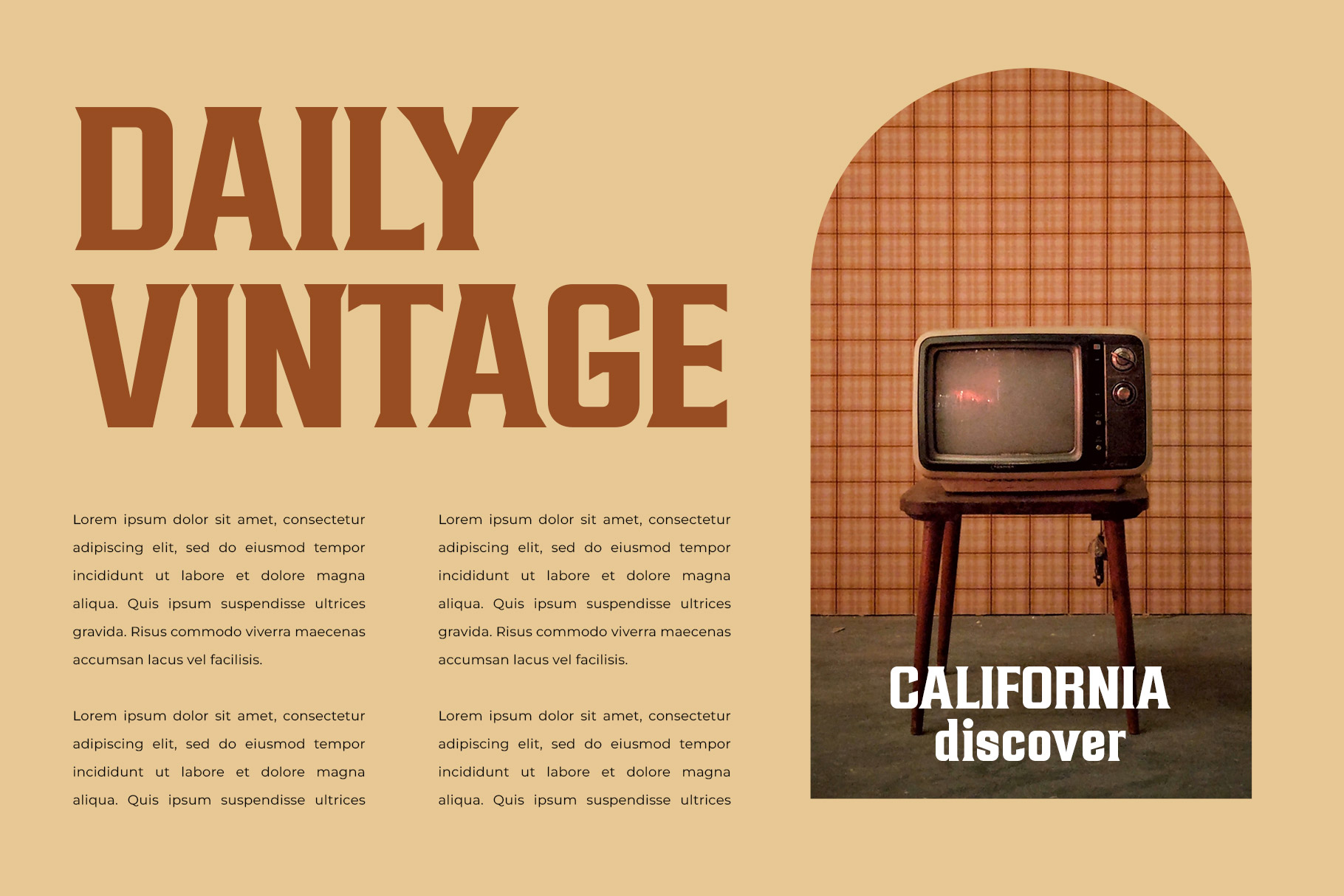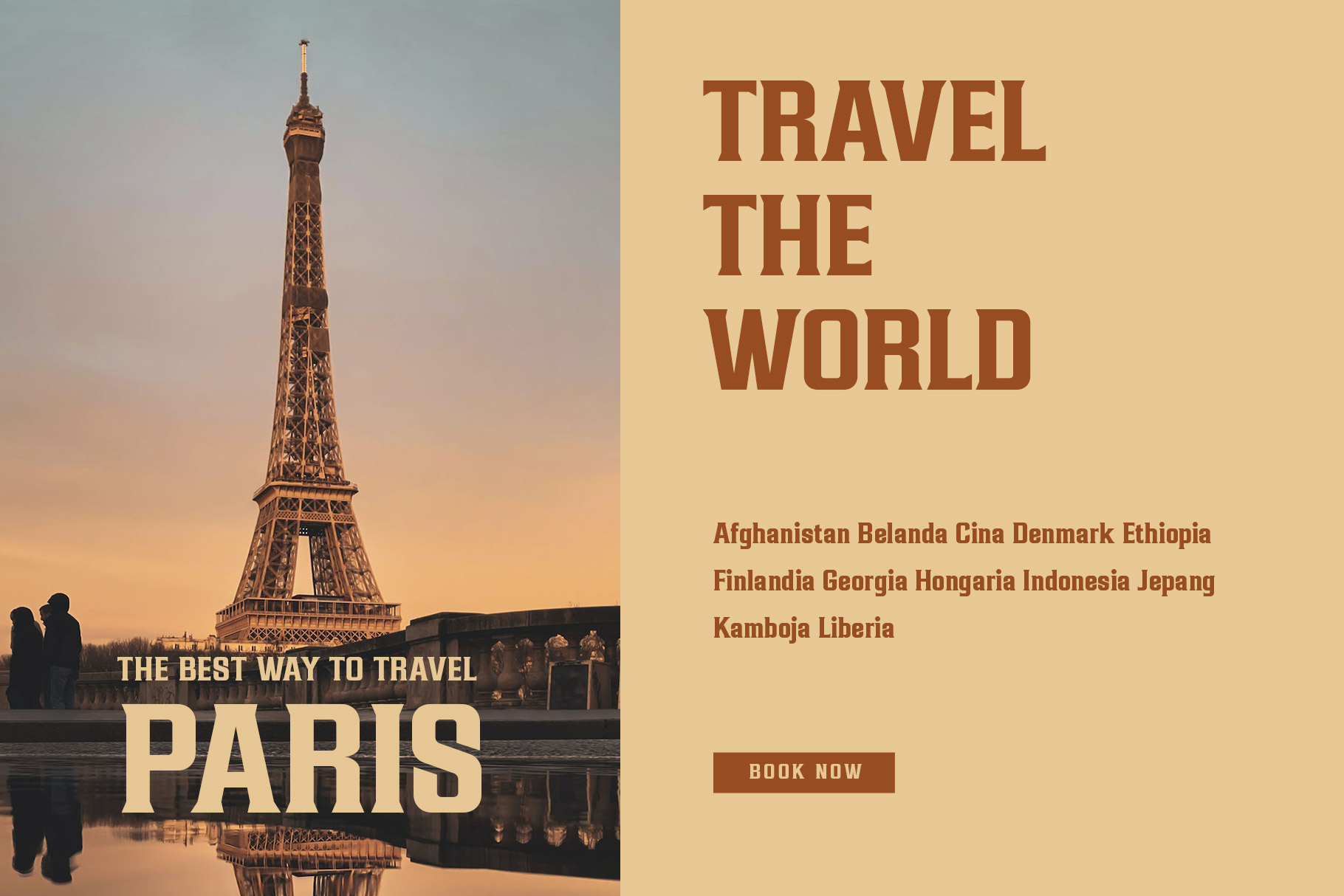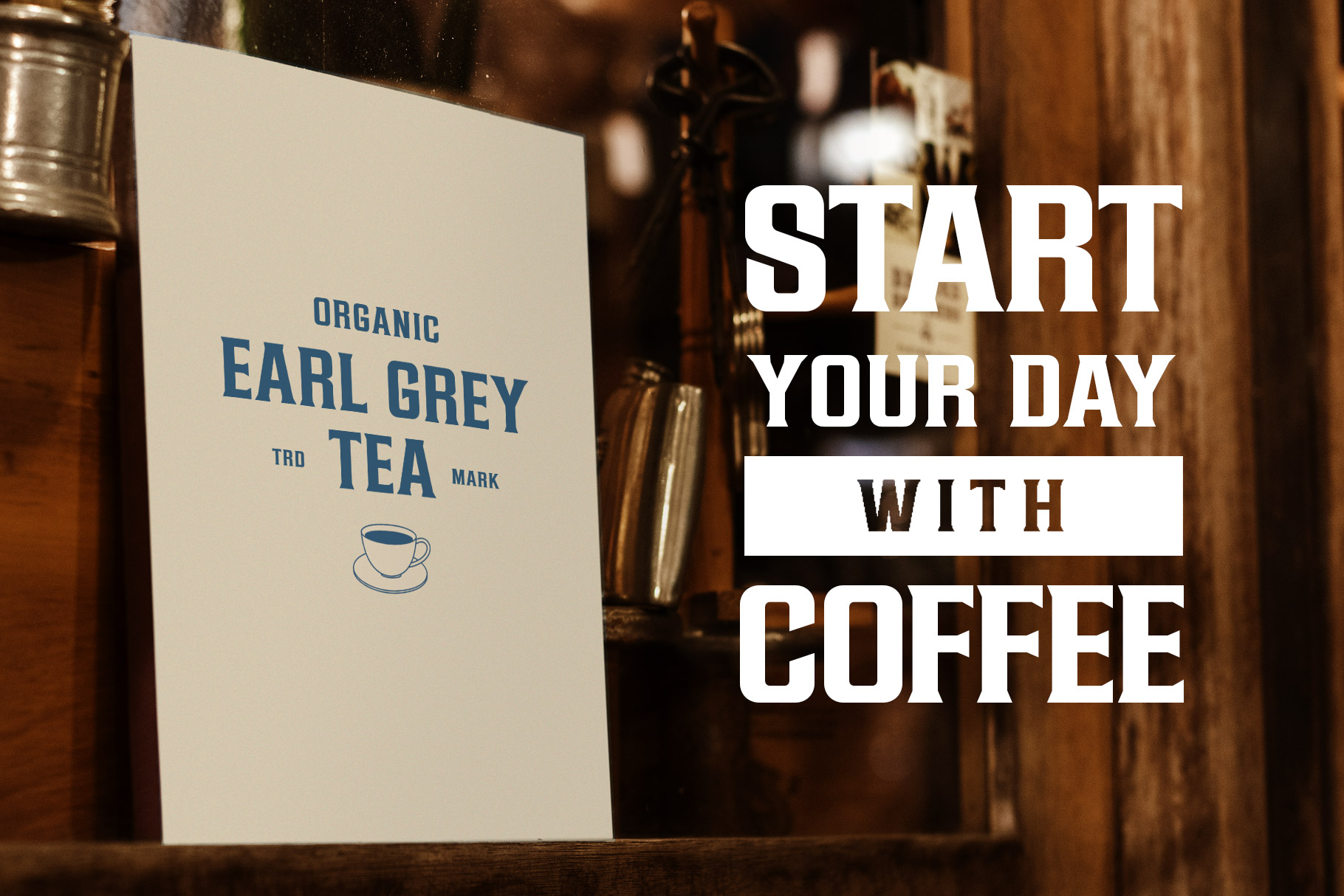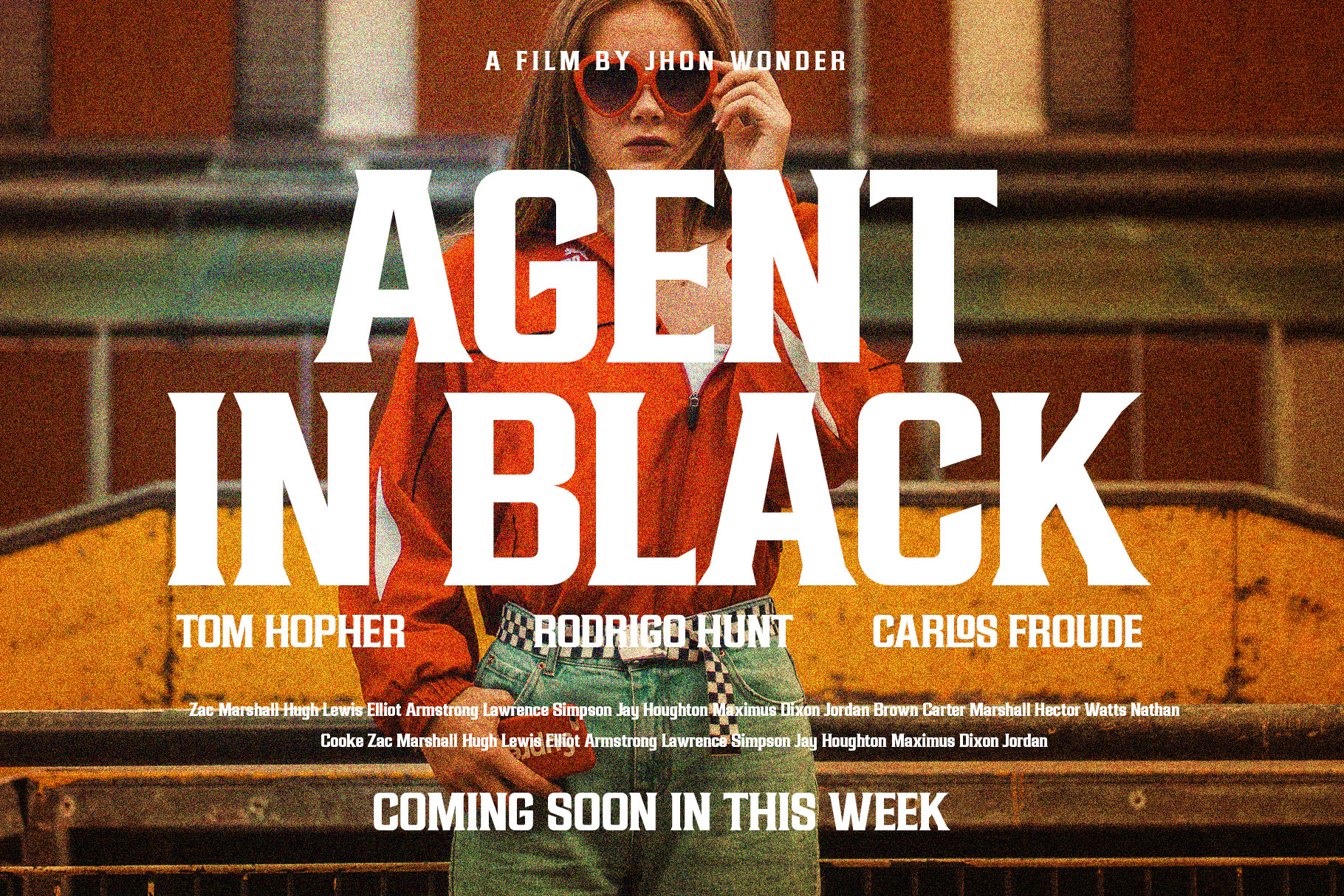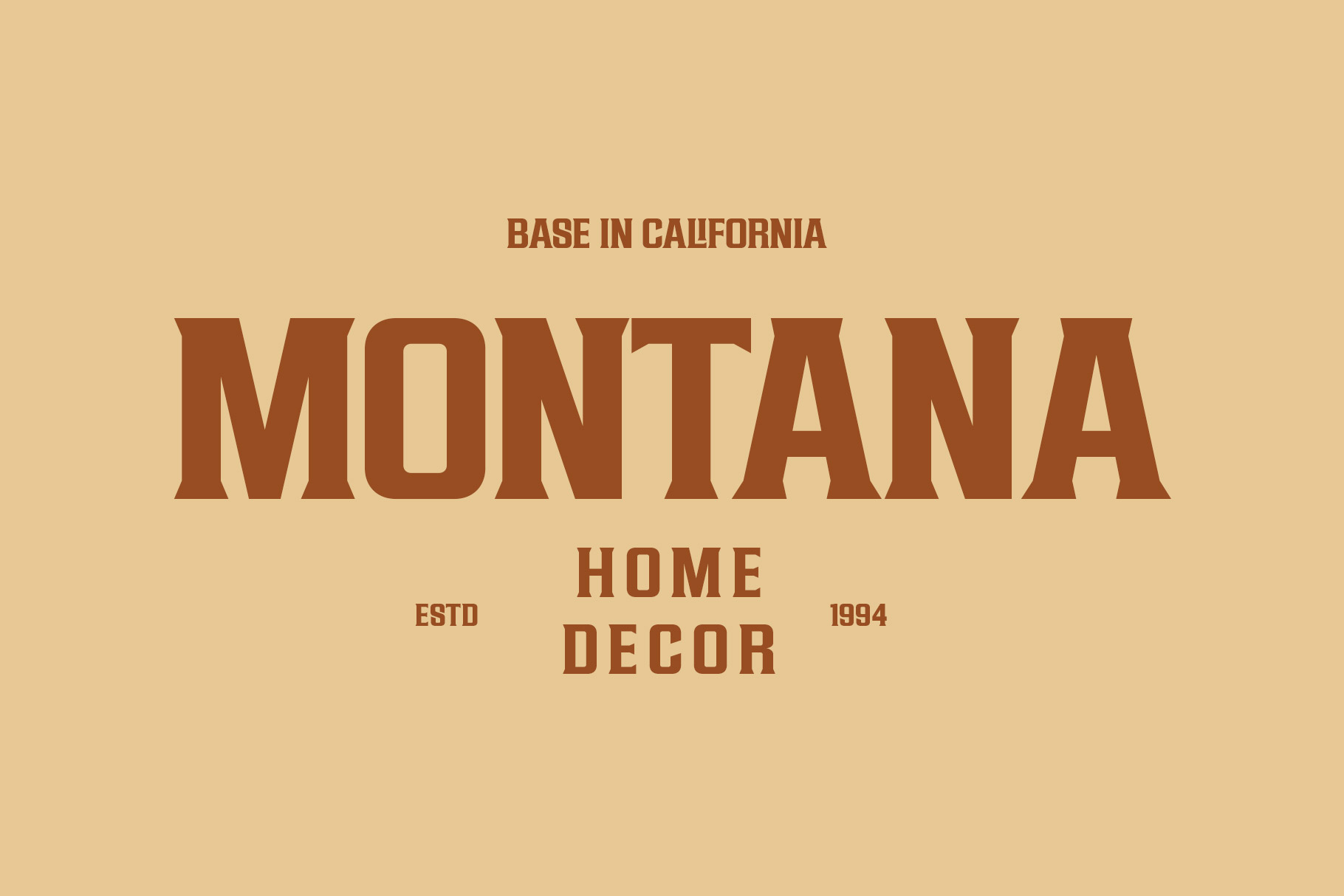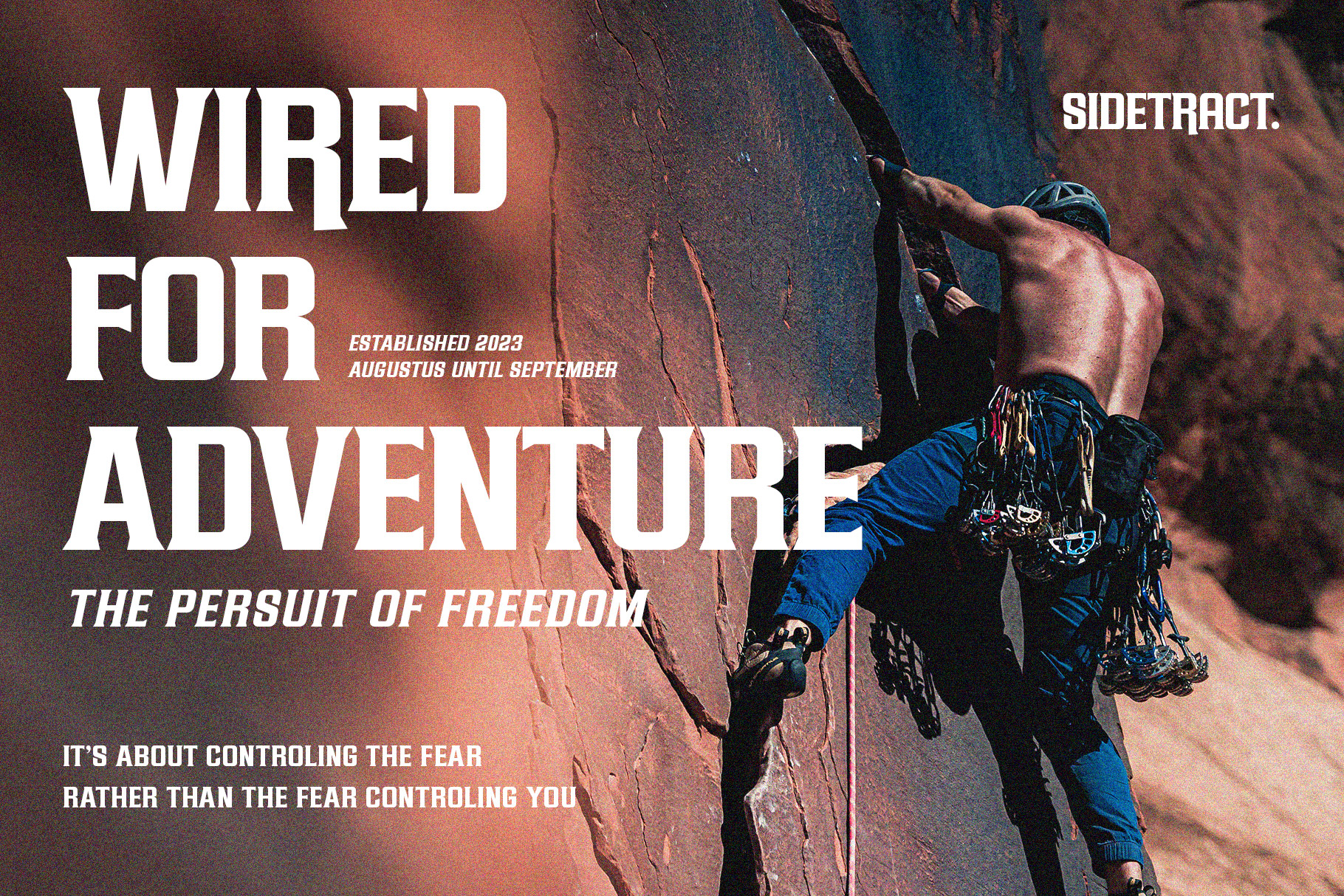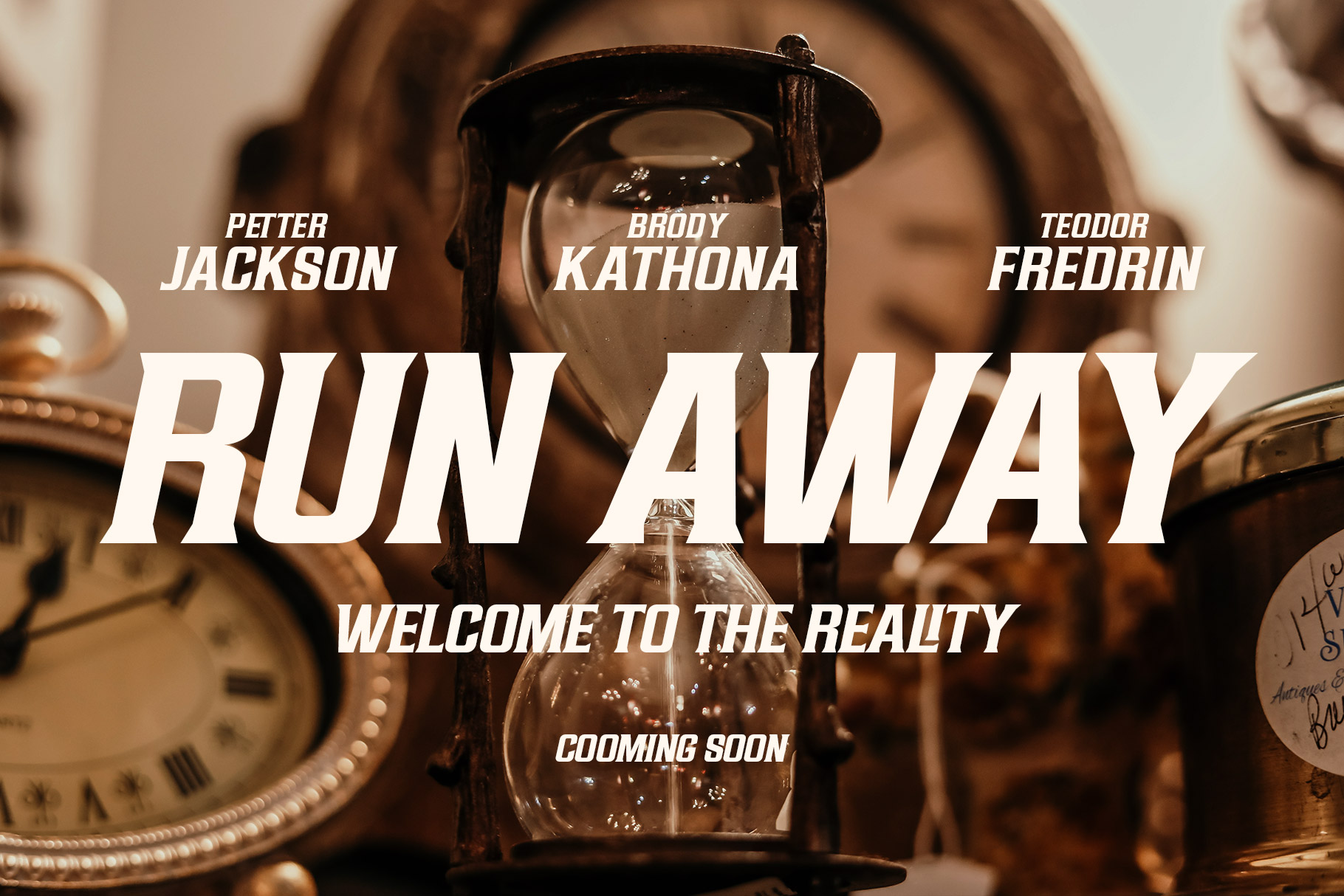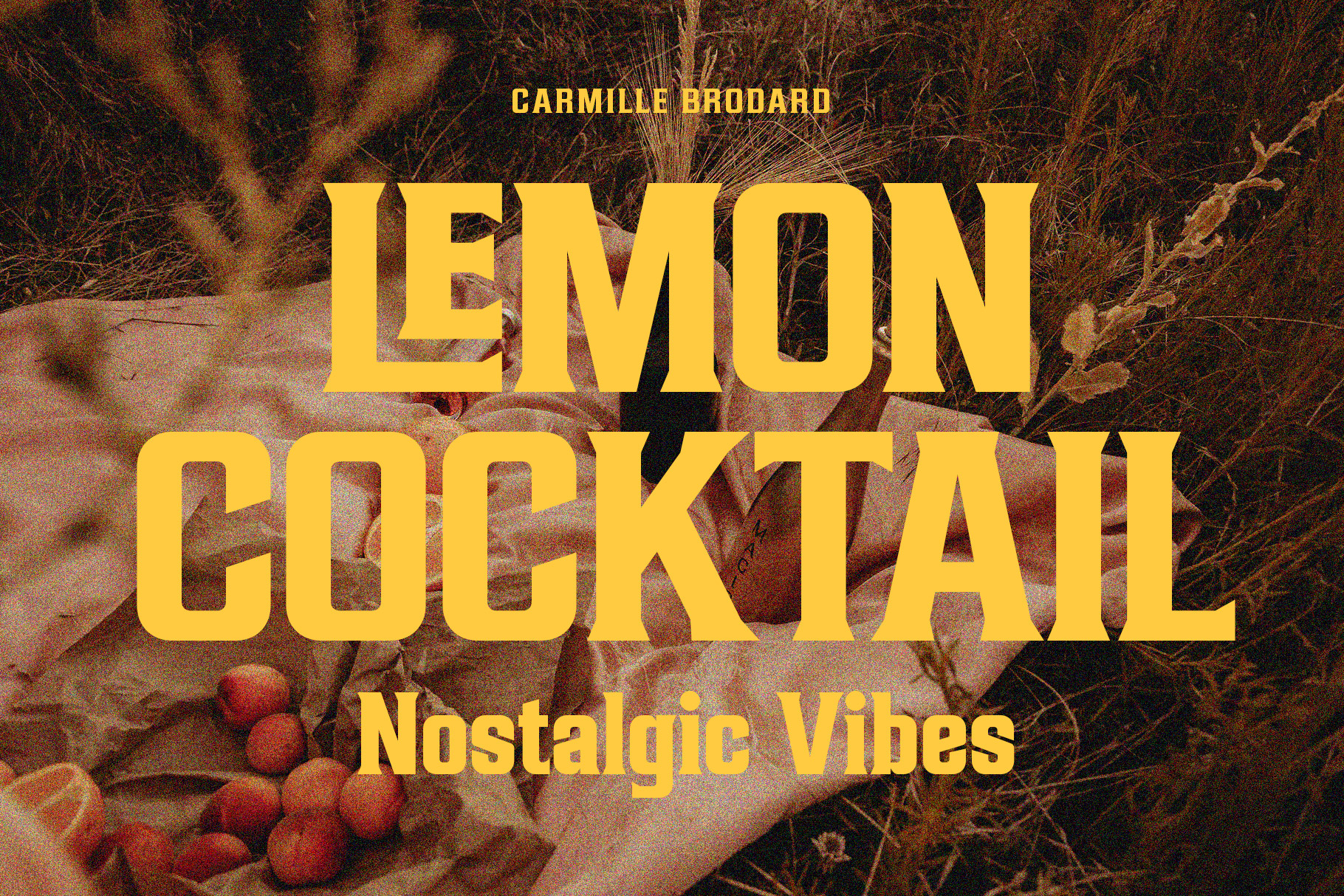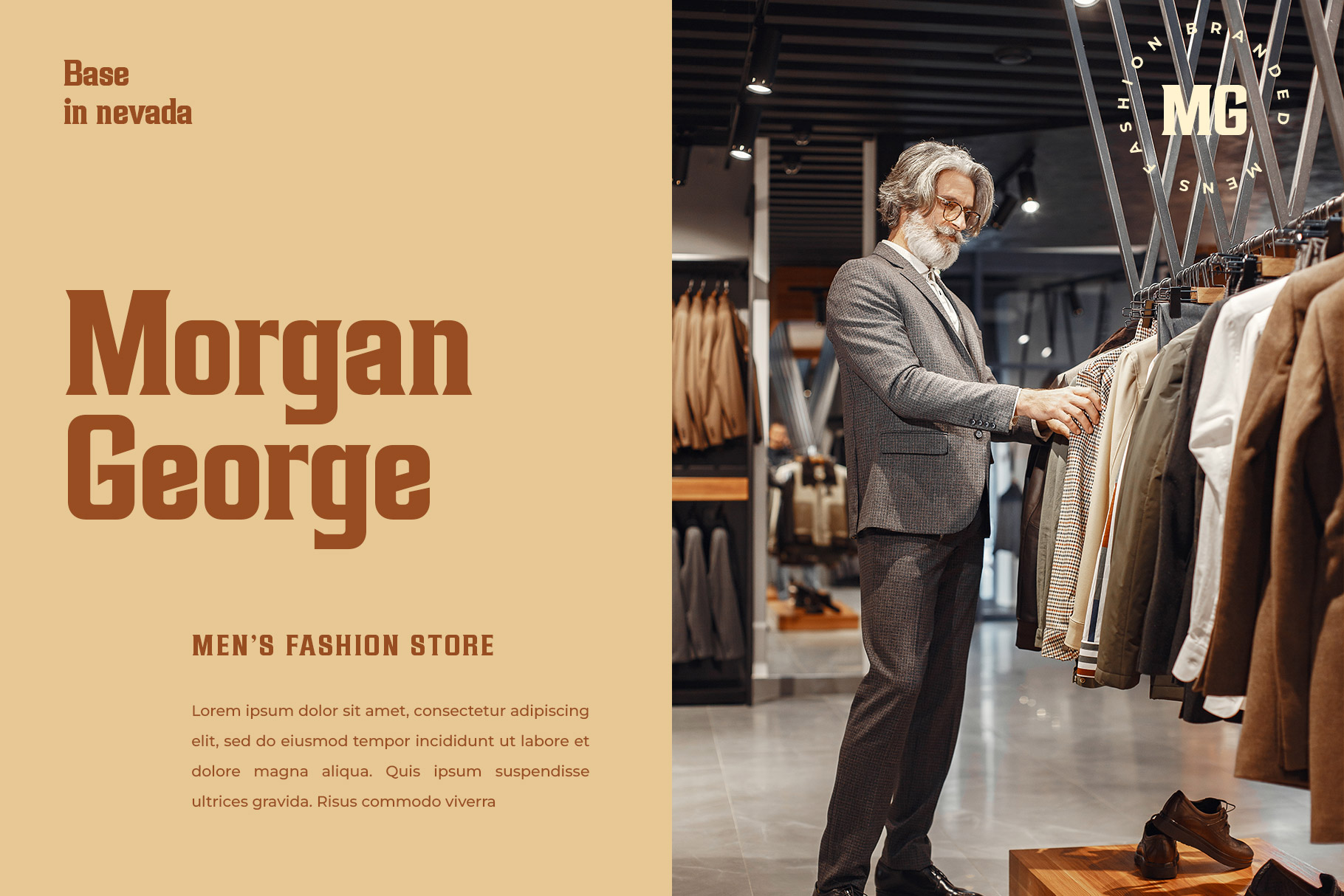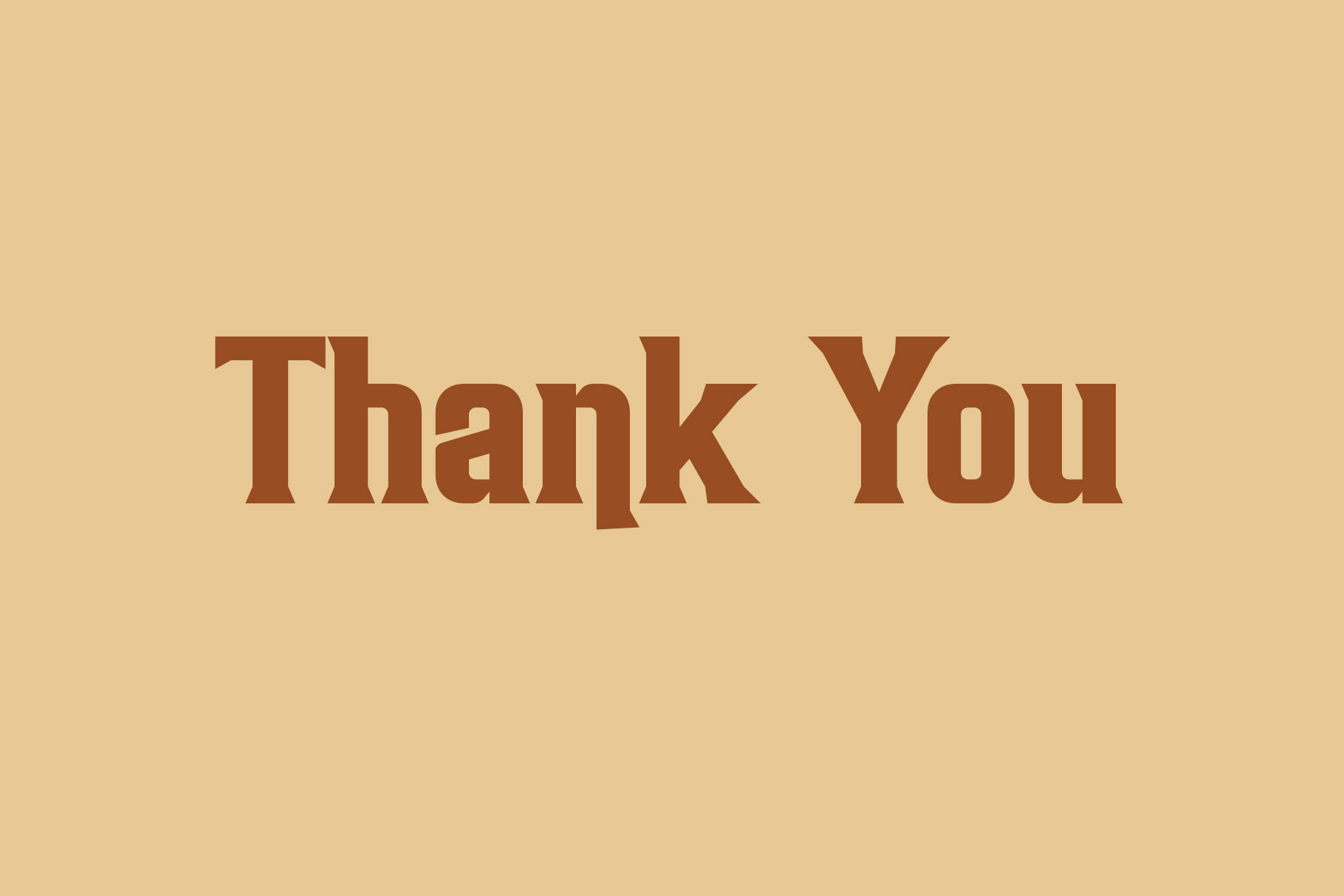
Helison A Unique Strong Serif Font
Helison – a modern & strong display serif with unique curved shape. All character had been carefully crafted look retro and more nostalgia. We keep this font looks fashionable, modern, luxury, premium, catchy and easy to use.
Perfectly suitable for creating endeavor chic, lifestyle design such as logos, title, cover, branding, display and magazine, and more. Now you have more choice when using Helison for typography.
• Unique and premium Ligature
• Alternate